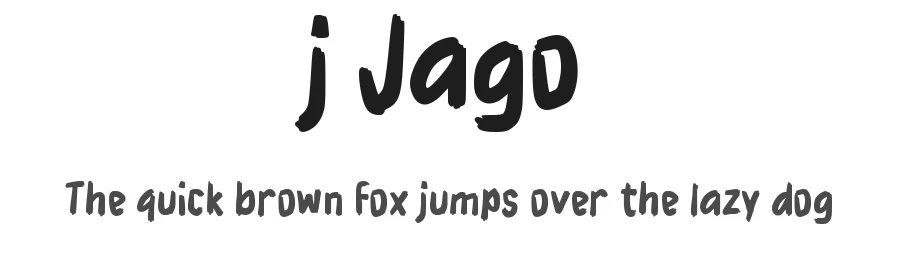
About Jasleens Jassy Font
Jasleens Jassy is a script & handwritten font designed by Jasleen Kalirai. It includes 66 glyphs, a regular weight, TTF (TrueType) format, and 102 languages. Jasleens Jassy is free to download; check the license details on this page before commercial use. Script & handwritten fonts like Jasleens Jassy work best for wedding invitations, greeting cards, signatures, and elegant branding.
Jasleens Jassy Font is a script font that shines as a display or heading face. Pair it with a clean sans-serif or serif font for body text β the contrast creates a clear hierarchy while the two styles stay balanced and easy to read.